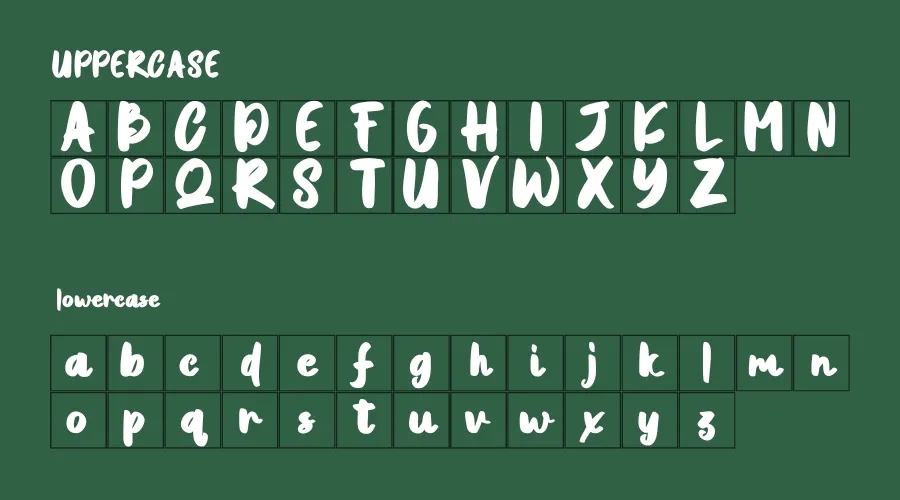
About Jungle Font
Today we Introducing Jungle Font! This is a wonderful and unique typeface designed by Rachma BT and published this typeface by Bonjour Type. The font has become a well-known choice amongst graphic designers and typographers due to its interesting character, versatility, and stylish look. It brings a sense of fun and playfulness, making it an ideal choice for any project that needs a touch of exotic flair.
This typeface contains 13 font styles available. And it features strong and angular lines, combined with soft curves to create a truly unique form. It has great readability even in small sizes and stands out from other similar fonts with its own personality. Its bold, expressive characters and character spacing make them perfect from all of its similar fonts.